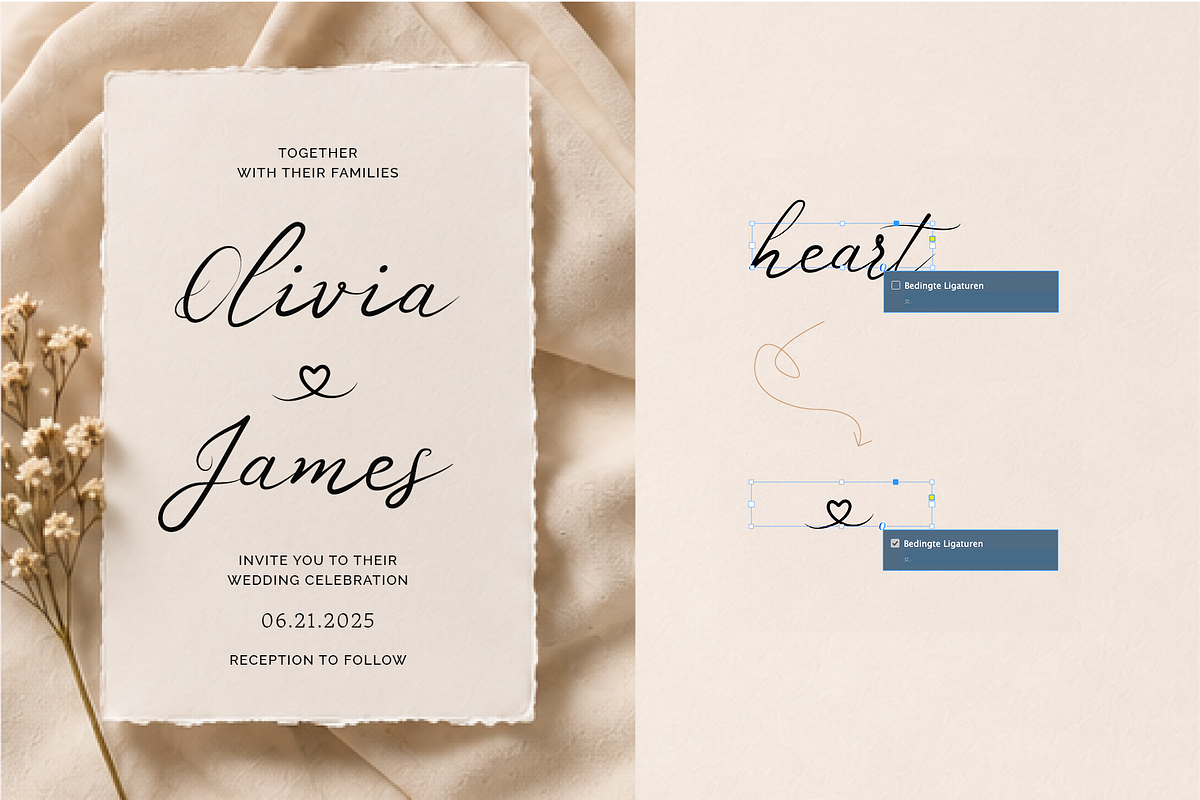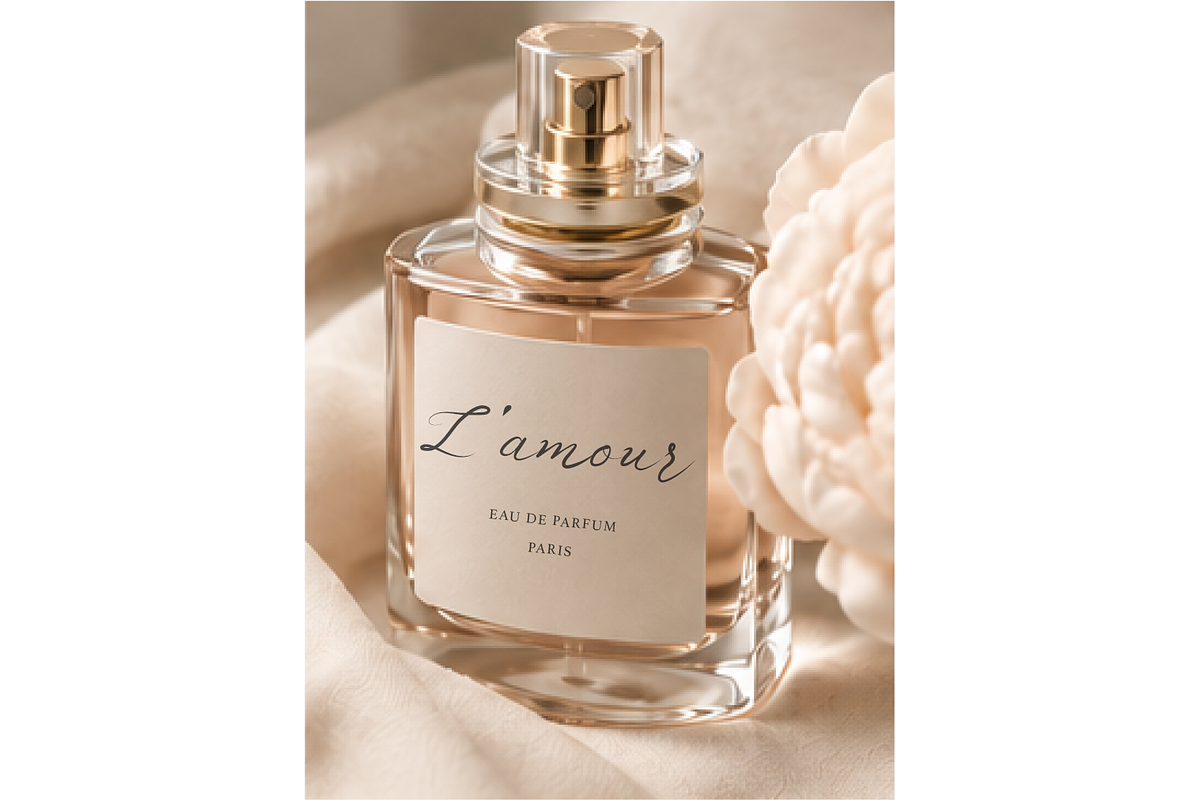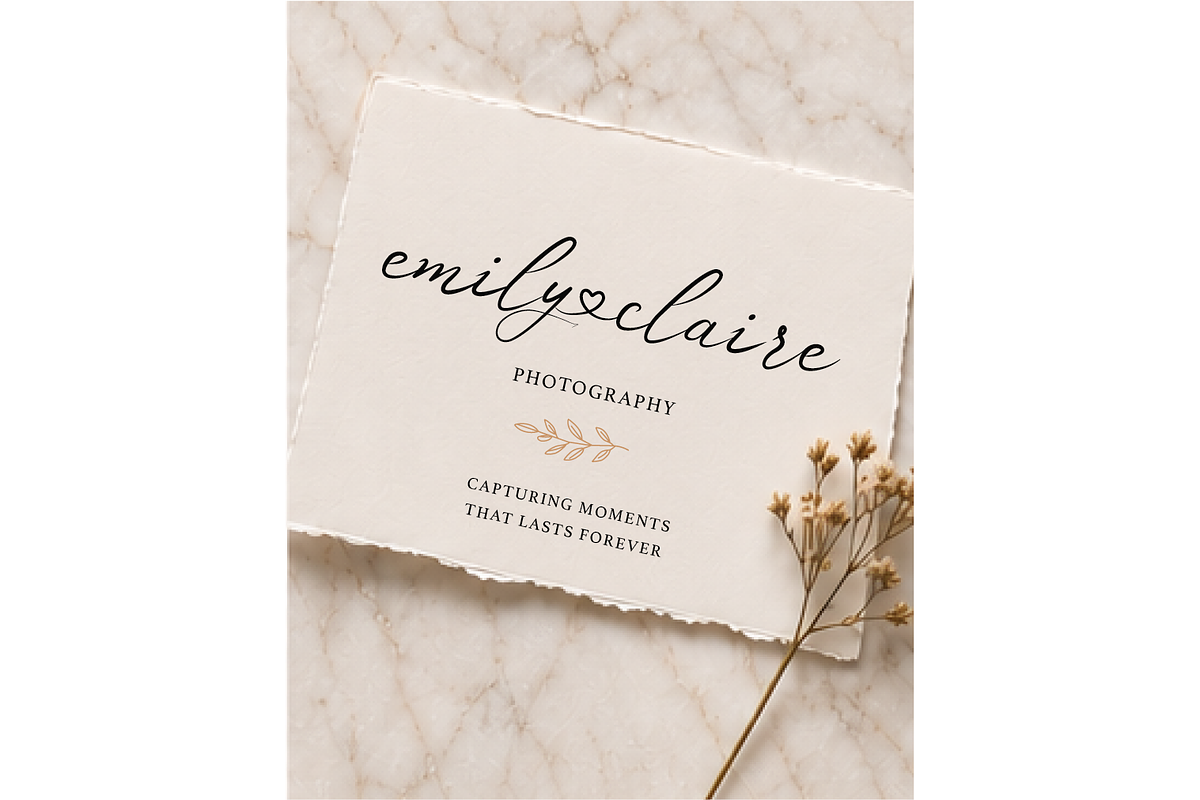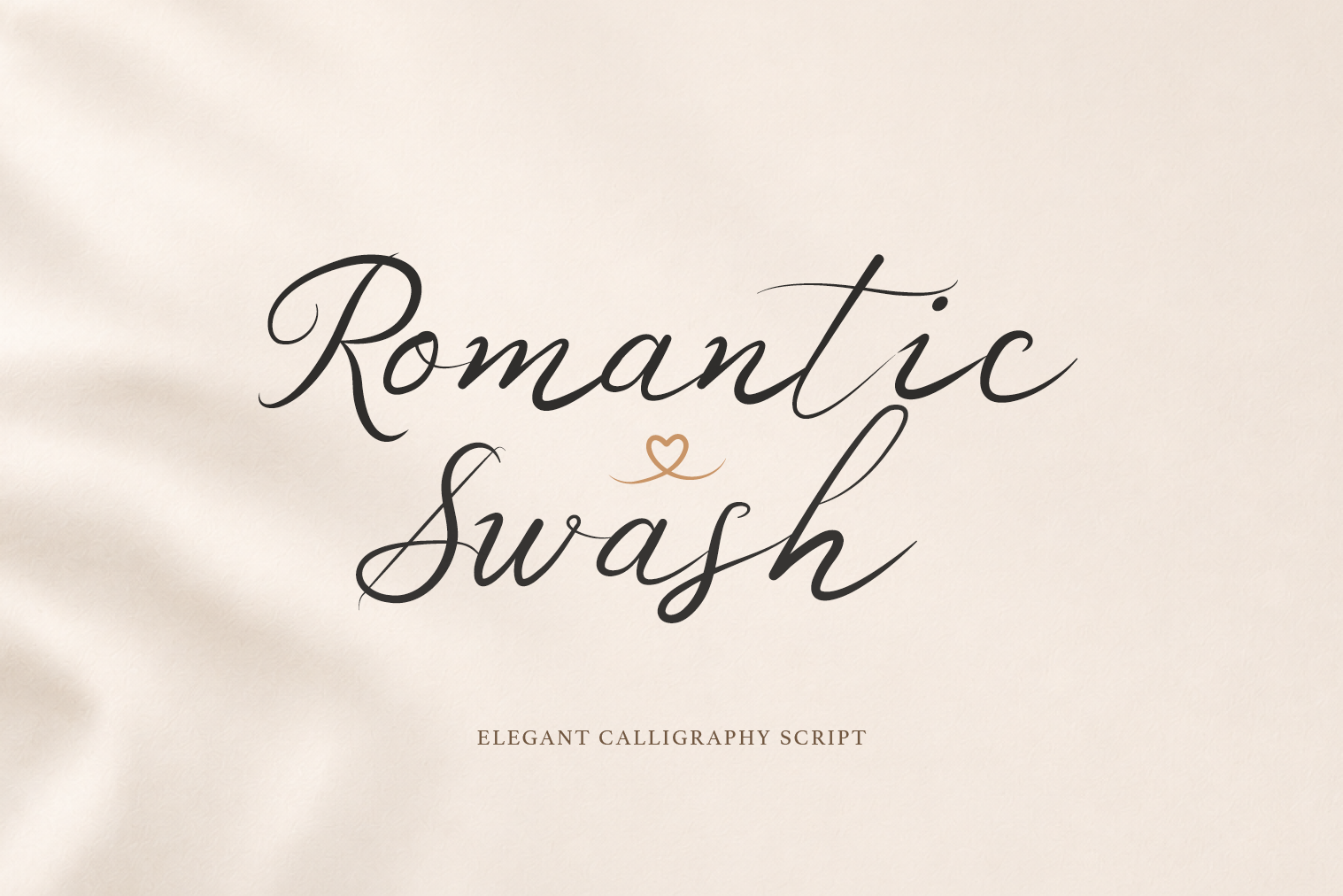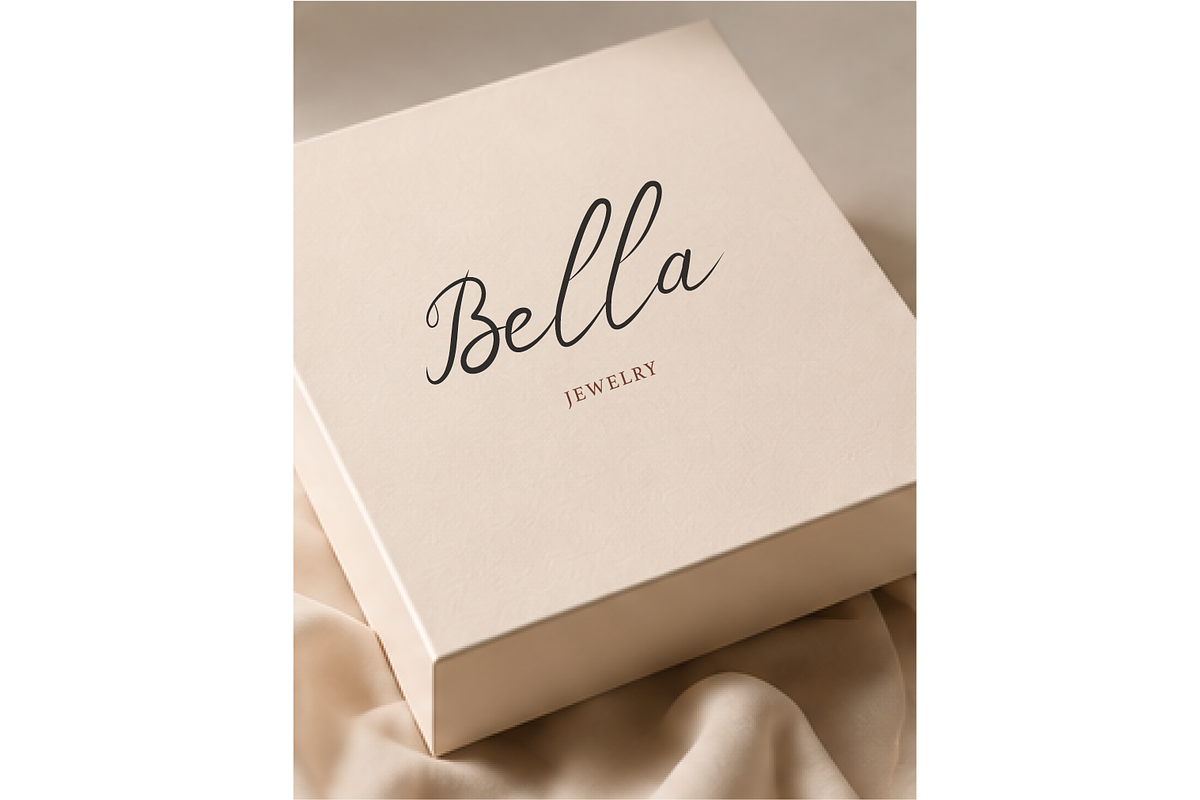
Romantic Swash - Elegant Script Font
Romantic Swash – Elegant Handwritten Calligraphy Script Font
Bring timeless elegance, luxury, and fluid grace to your designs with Romantic Swash, a sophisticated handwritten calligraphy script font inspired by classic copperplate lettering, modern wedding stationery, and high-end luxury branding.
Romantic Swash features beautifully balanced letterforms, flowing ink connections, and an extensive collection of elegant decorative flourishes that elevate any text instantly.
ELEGANT CALIGRAPHY SCRIPT
Elegant & Fluid: A meticulously crafted font that mimics the natural rhythm, organic flow, and rich contrast of fine, handwritten ink calligraphy.
The Magic "Heart" Feature: Turn words into art instantly! Simply type the word "heart" inside your design software, and the font will automatically generate a beautiful, decorative calligraphic heart symbol.
Extensive Swashes: Includes decorative beginning and ending swashes and looping flourishes for a completely authentic, high-end handwritten feel.
PERFECT FOR
Romantic Swash is made for delicate, high-end display typography and works beautifully for:
Wedding invitations
Bridal shower stationery
Save-the-date cards
Luxury branding
Logo design
High-end packaging
Cosmetic labels
Perfume branding
Jewelry designs
Monograms
Editorial headlines
Photography watermarks
Elegant quotes
Greeting cards
Menu design for fine dining
Fashion branding
E-commerce store titles
Creative personal projects
ELEGANT • HANDWRITTEN • ROMANTIC • CALLIGRAPHY
Romantic Swash combines timeless formal penmanship with modern, airy, and premium handwritten aesthetics.
Use the standard characters for clean, high-end legibility, or activate the decorative swashes and the automatic heart feature to add a dramatic, sweeping, and romantic look to your titles and logos.
The typeface is especially suited to elegant, luxurious, romantic, handwritten, clean, minimalist, high-end, classic, and wedding-inspired design aesthetics.